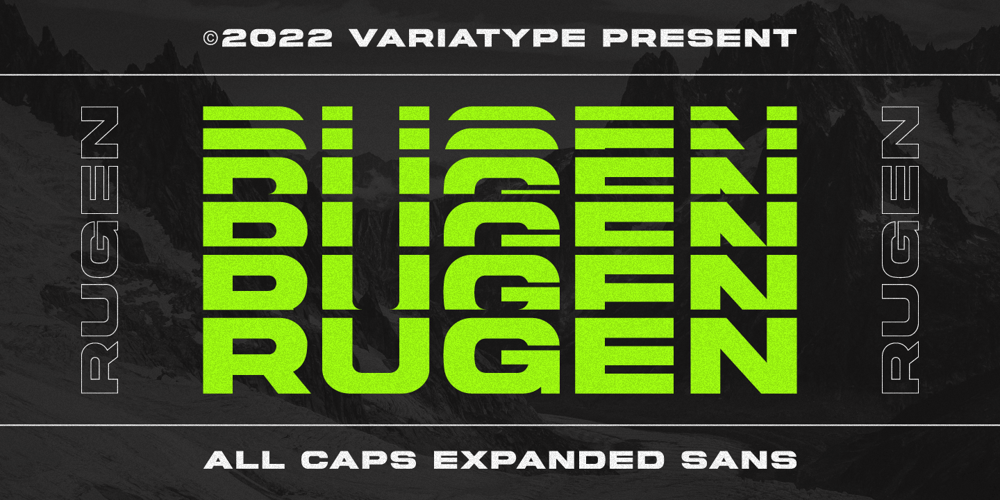
Rugen Font Family was designed by Mukhlis Muhammad and published by Variatype. Rugen contains 6 styles and family package options. Rugen is an urban all-caps sans serif that perfectly matches your branding project and more.FONT FEATURES Additional Accents 66 Languages Kerning Alternates